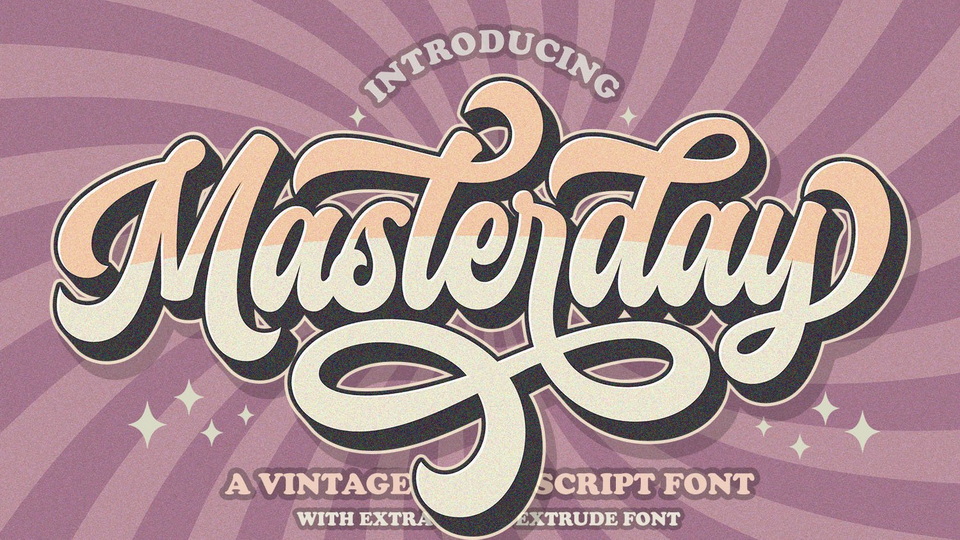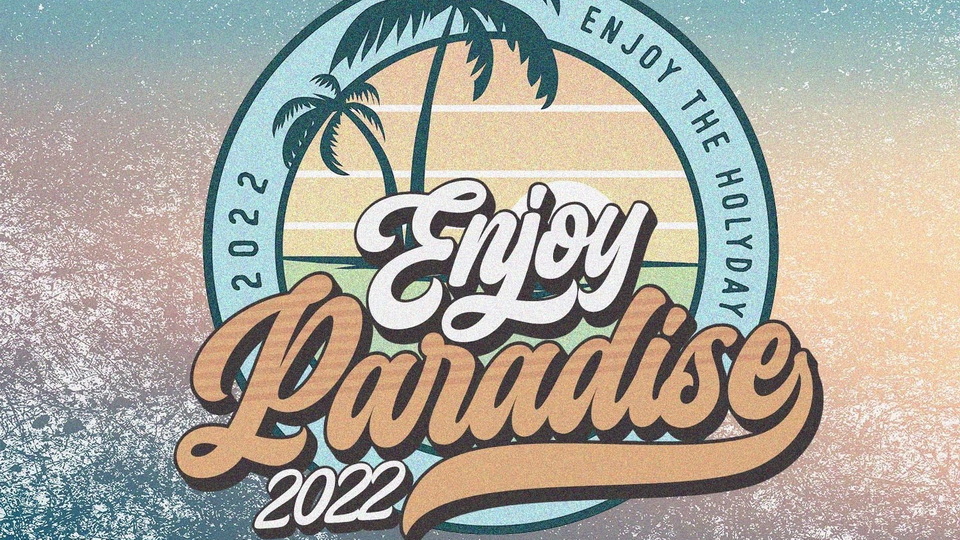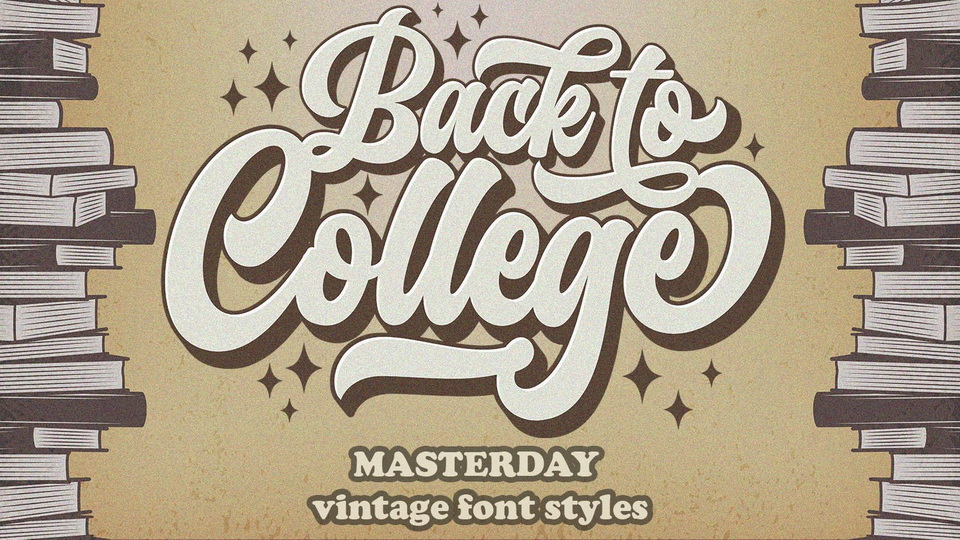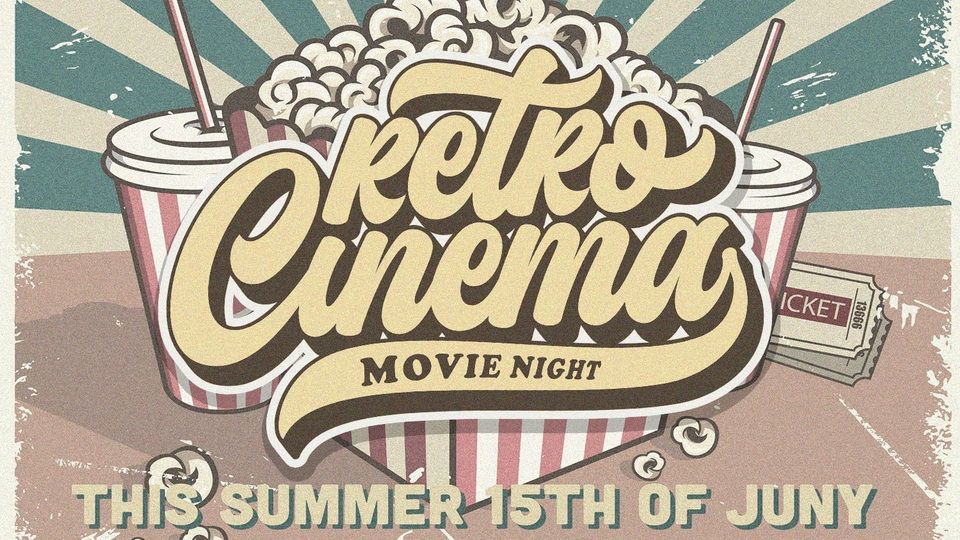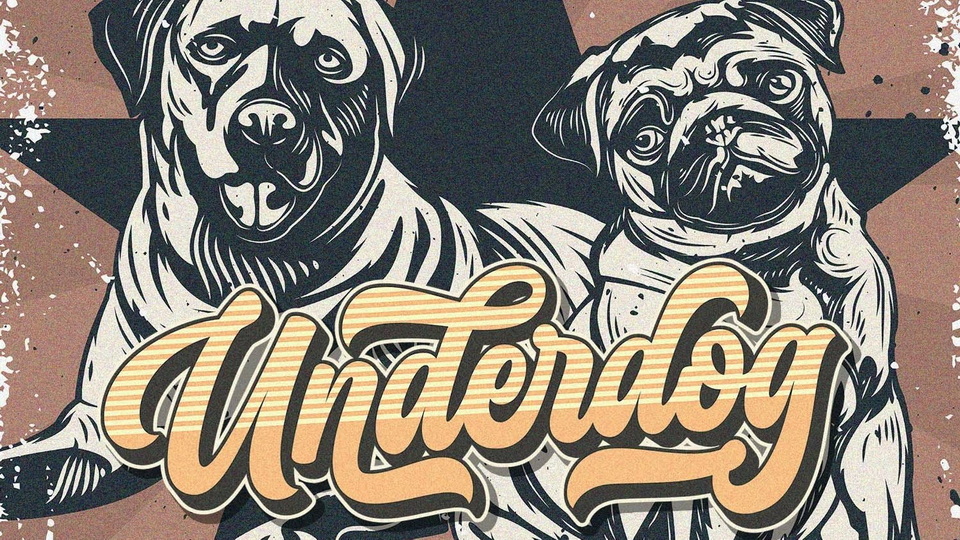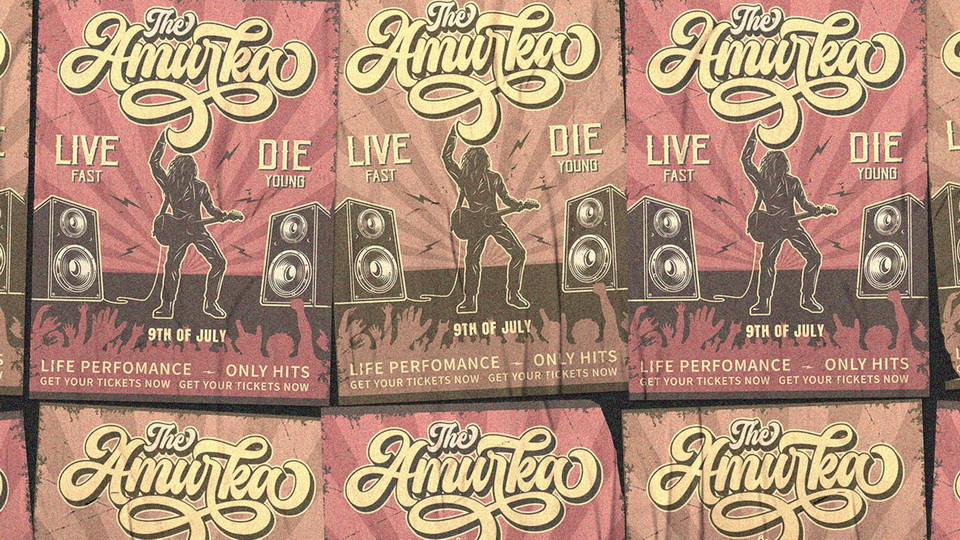
Masterday Vintage Font
Masterday is an urban retro script font inspired by the the style like a logotype lettering.
Masterday font was created to help you designing logotype or lettering style signage for your brand or your clients.